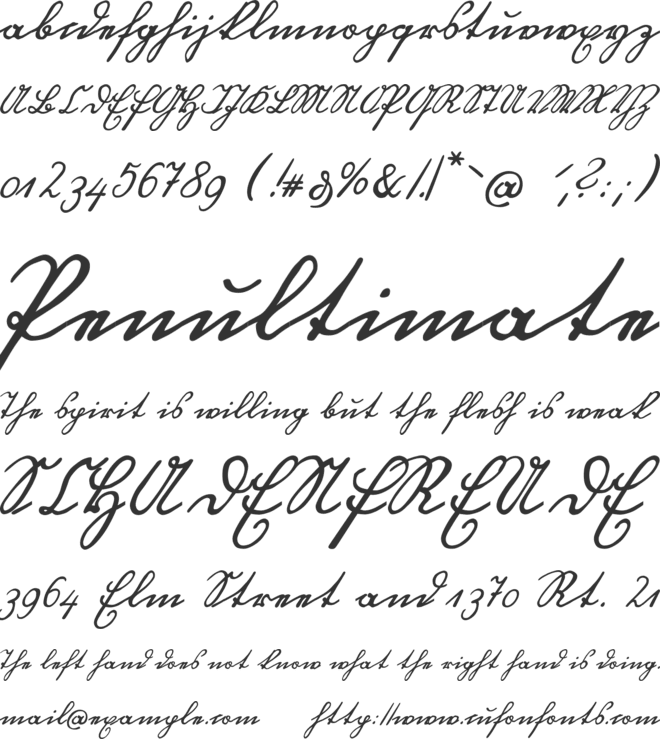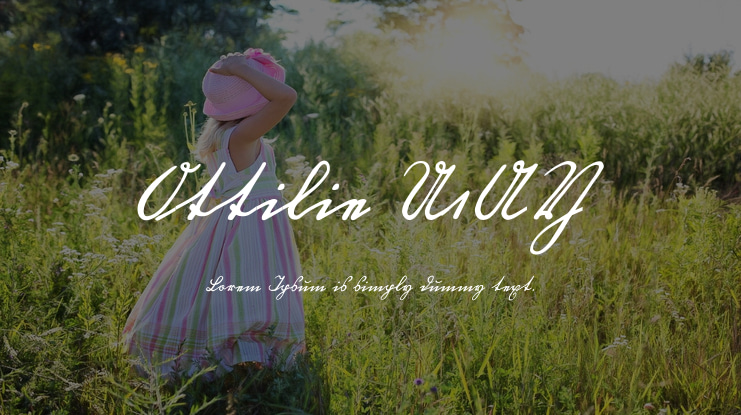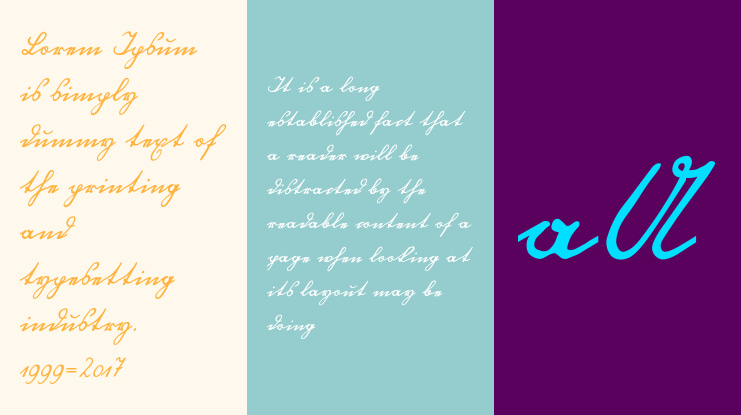
Ottilie U1AY Font
Google translate says:I've been looking for a suitable name for my first Unicode-compliant German cursive, was recommended to me some old-fashioned women's names, including Ottilie. I was of the opinion that although this is not such a bad idea, but such a name for the other font not really fit. So I thought that for such a name, the font would look a lot more hand-written, and sat down again translate it another German cursive. So here it is now, my Ottilie. Again, fully equipped with all the necessary ligatures, long s and round on their respective Unicode courts, as well as some letters that begin or end with the respective versions without having a circular arc on or smear